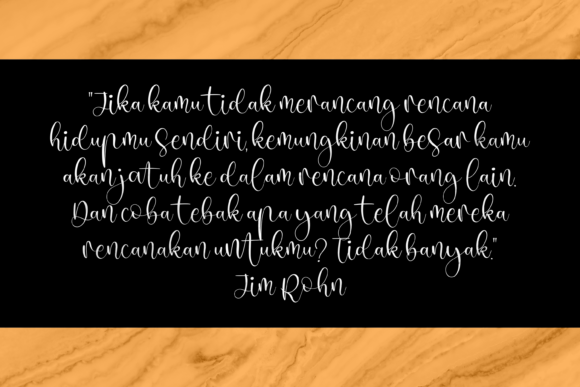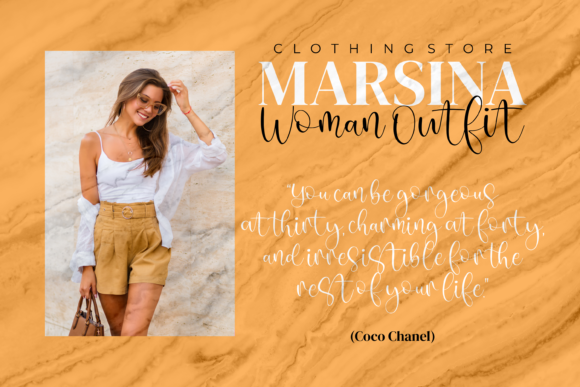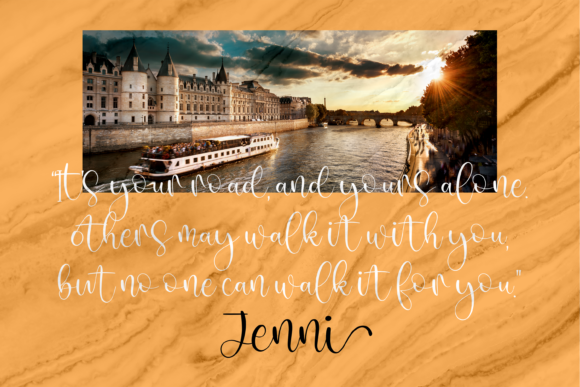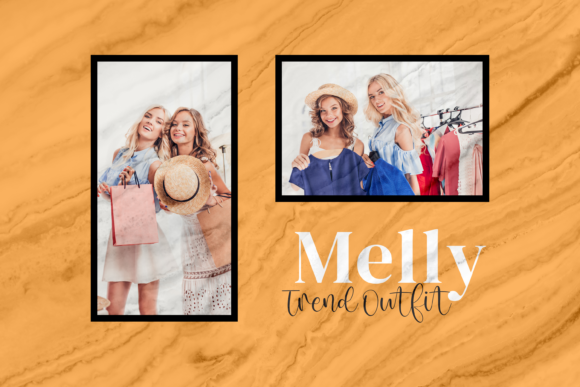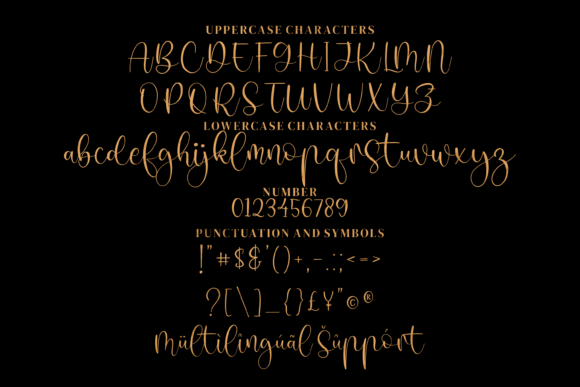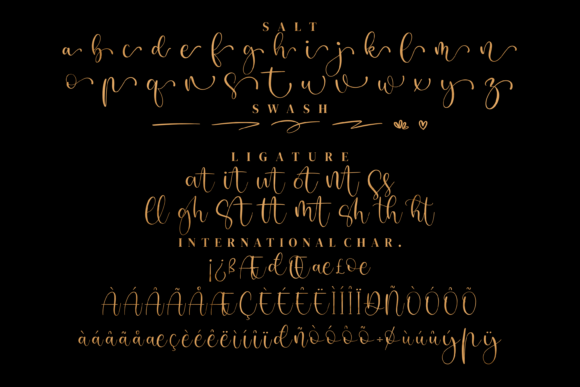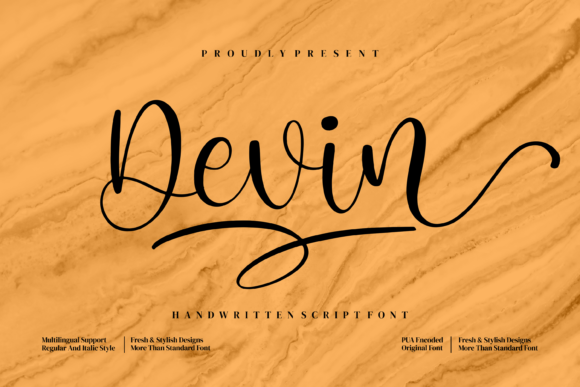
Introducing Devin Font: A Sweet and Cursive Handwritten Font for Your Design Needs
Are you a designer or crafter looking for a font that can add a touch of elegance and sweetness to your designs? Look no further than Devin Font! This beautiful, cursive handwritten font is perfect for a variety of design ideas, from wedding invitations and party decor to branding and marketing materials.
What Makes Devin Font Special?
Devin Font is a unique and versatile font that offers a range of features that make it stand out from other fonts. Here are just a few things that make Devin Font special:
• Sweet and Cursive Design: Devin Font has a gentle, cursive design that is perfect for creating beautiful and elegant designs. The font’s sweet and flowing lines make it ideal for designs that require a touch of sophistication and whimsy.
• PUA Encoded: Devin Font is PUA (Private Use Area) encoded, which means that you can access all of the glyphs and swashes with ease. This makes it easy to customize your designs and add unique touches that make your work stand out.
• Versatile: Devin Font is a versatile font that can be used for a wide range of design ideas. Whether you’re creating wedding invitations, party decor, or branding materials, Devin Font is the perfect choice.
Uses for Devin Font
Devin Font is a versatile font that can be used for a wide range of design ideas. Here are just a few examples of how you can use Devin Font:
• Wedding Invitations: Devin Font is perfect for creating beautiful and elegant wedding invitations. The font’s sweet and cursive design makes it ideal for formal and informal wedding invitations alike.
• Party Decor: Devin Font is also great for creating party decor, such as birthday party invitations, baby shower invitations, and more.
• Branding and Marketing: Devin Font can be used for branding and marketing materials, such as logos, business cards, and brochures.
• DIY Crafts: Devin Font is also perfect for DIY crafters who want to add a personal touch to their projects. Use Devin Font to create beautiful and unique signs, banners, and more.
Tips for Using Devin Font
Here are a few tips for using Devin Font:
• Experiment with Different Sizes: Devin Font looks great in a variety of sizes, so don’t be afraid to experiment with different sizes to find the one that works best for your design.
• Pair with Other Fonts: Devin Font pairs well with other fonts, so try pairing it with a bold font for a contrasting look.
• Use the Swashes: Devin Font’s PUA encoding makes it easy to access the swashes and glyphs. Use these to add a unique touch to your designs.
Devin Font is a beautiful and versatile font that is perfect for designers and crafters alike. With its sweet and cursive design, PUA encoding, and versatility, Devin Font is the perfect choice for a wide range of design ideas. Whether you’re creating wedding invitations, party decor, or branding materials, Devin Font is sure to make your designs stand out. So why wait? Download Devin Font today and start creating beautiful and unique designs!